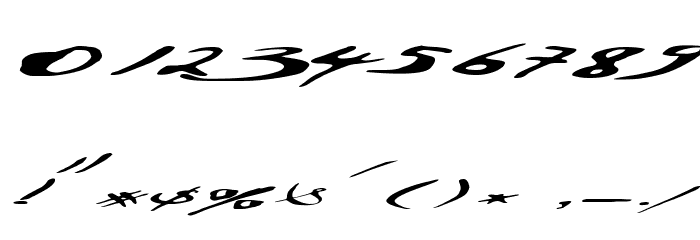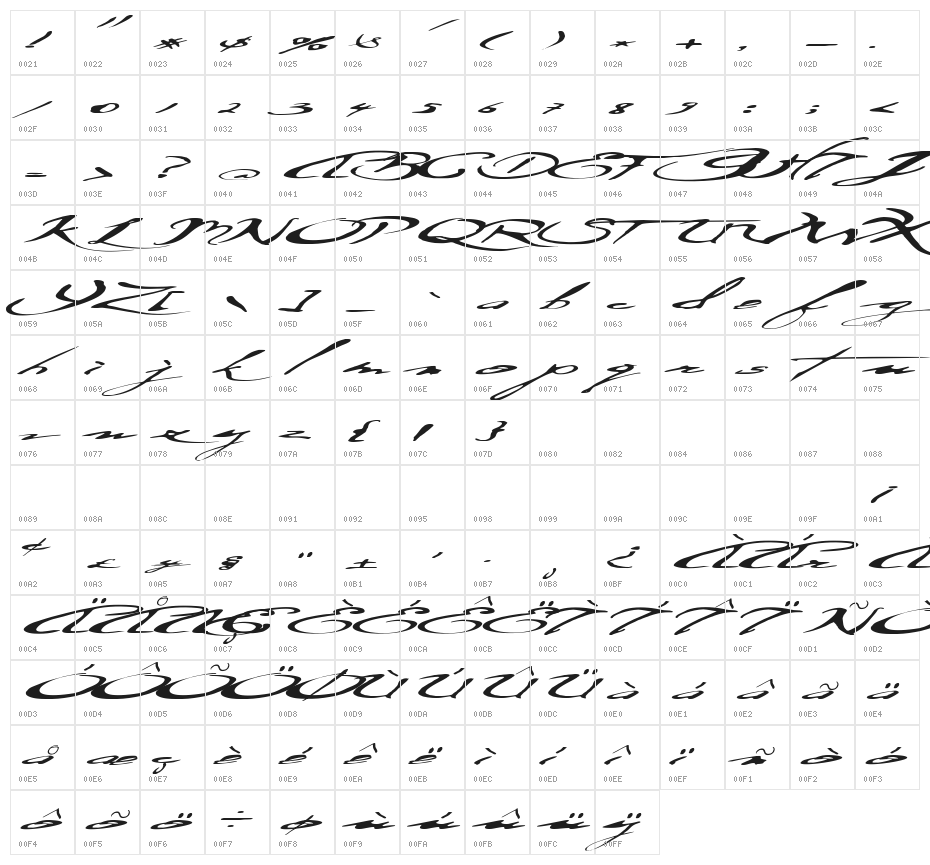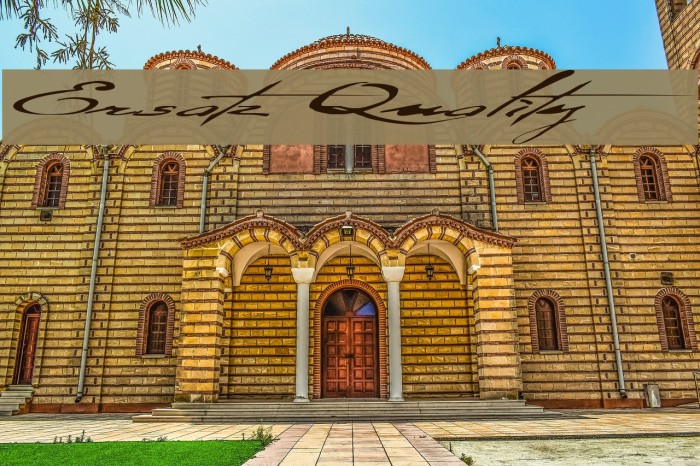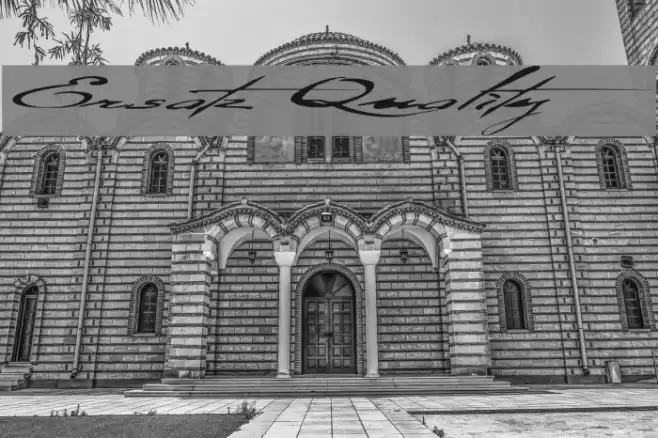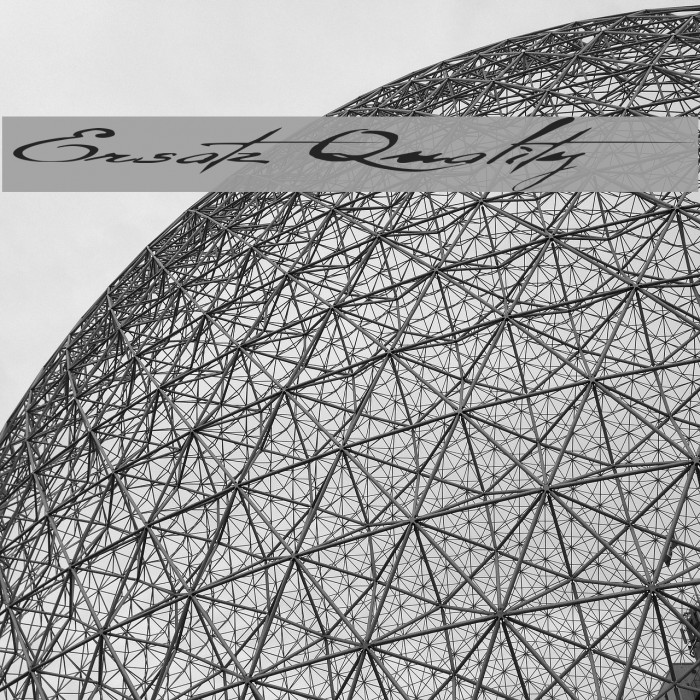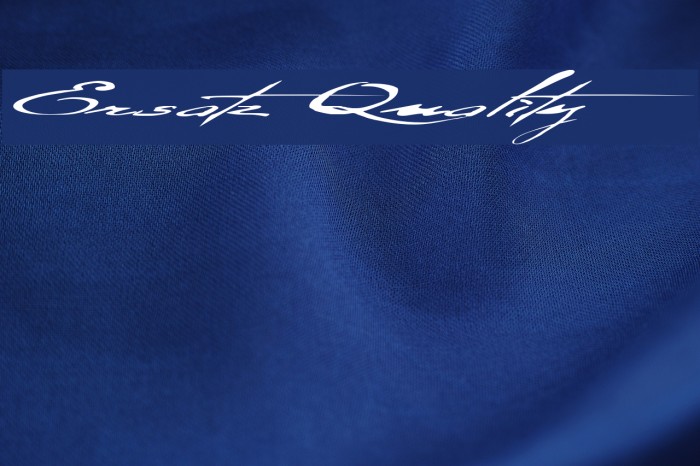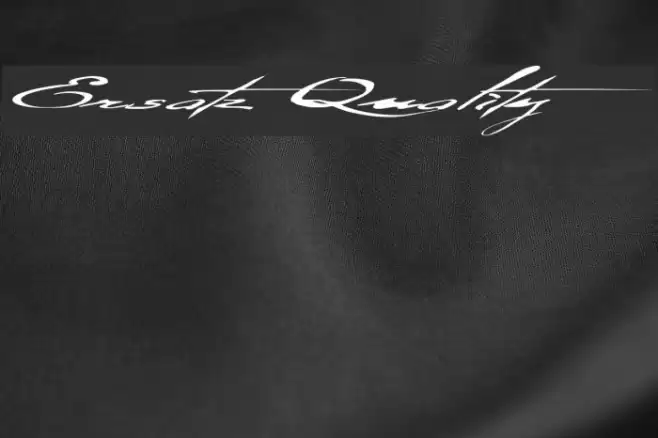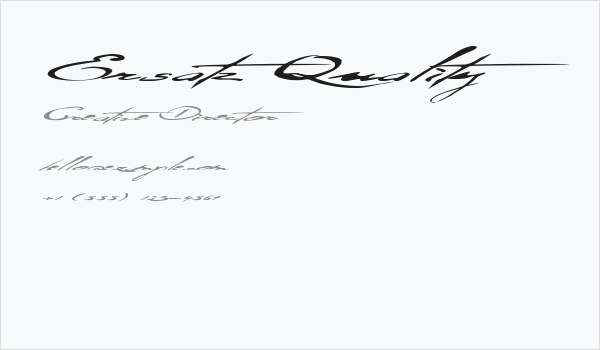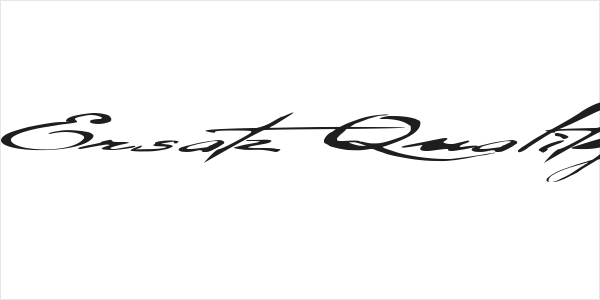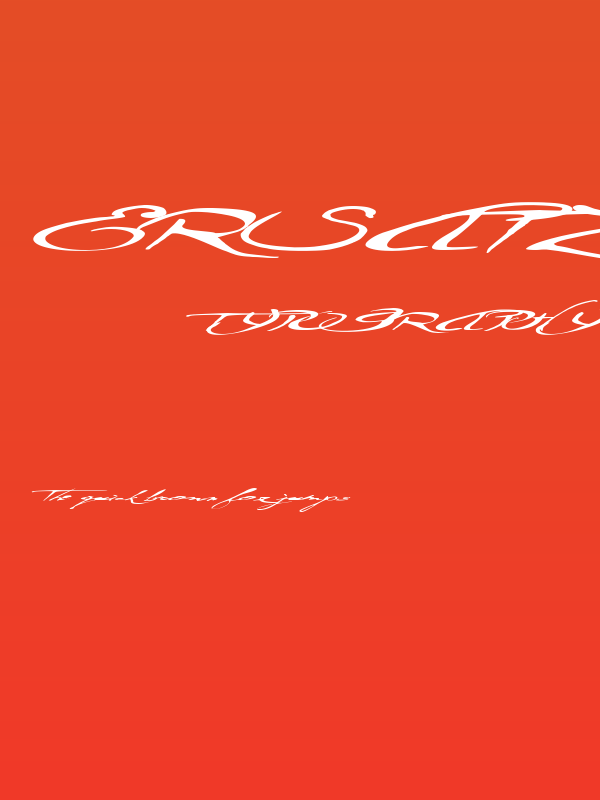
Ersatz Quality Font
Ersatz Quality Description
This font exudes an elegant and sophisticated style, characterized by its flowing, cursive script. The letters are intricately designed with sweeping curves and flourishes, giving it a dynamic and artistic appearance. The uppercase letters are particularly ornate, with exaggerated loops and swashes that add a sense of grandeur. The lowercase letters maintain a consistent fluidity, complementing the uppercase with their graceful strokes. The numbers and special characters are equally stylized, ensuring a cohesive look across all elements. This font is perfect for projects that require a touch of elegance and creativity.
Overall StyleElegant
Use CaseLogos, Invitations, Decorative text
Proposed ProjectsIdeal for wedding invitations, luxury branding, high-end product packaging, and artistic posters.